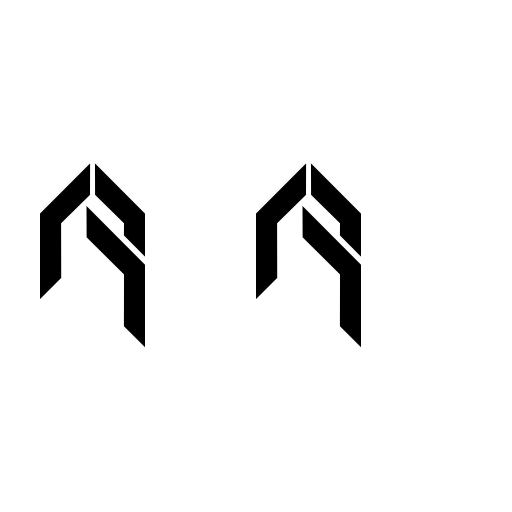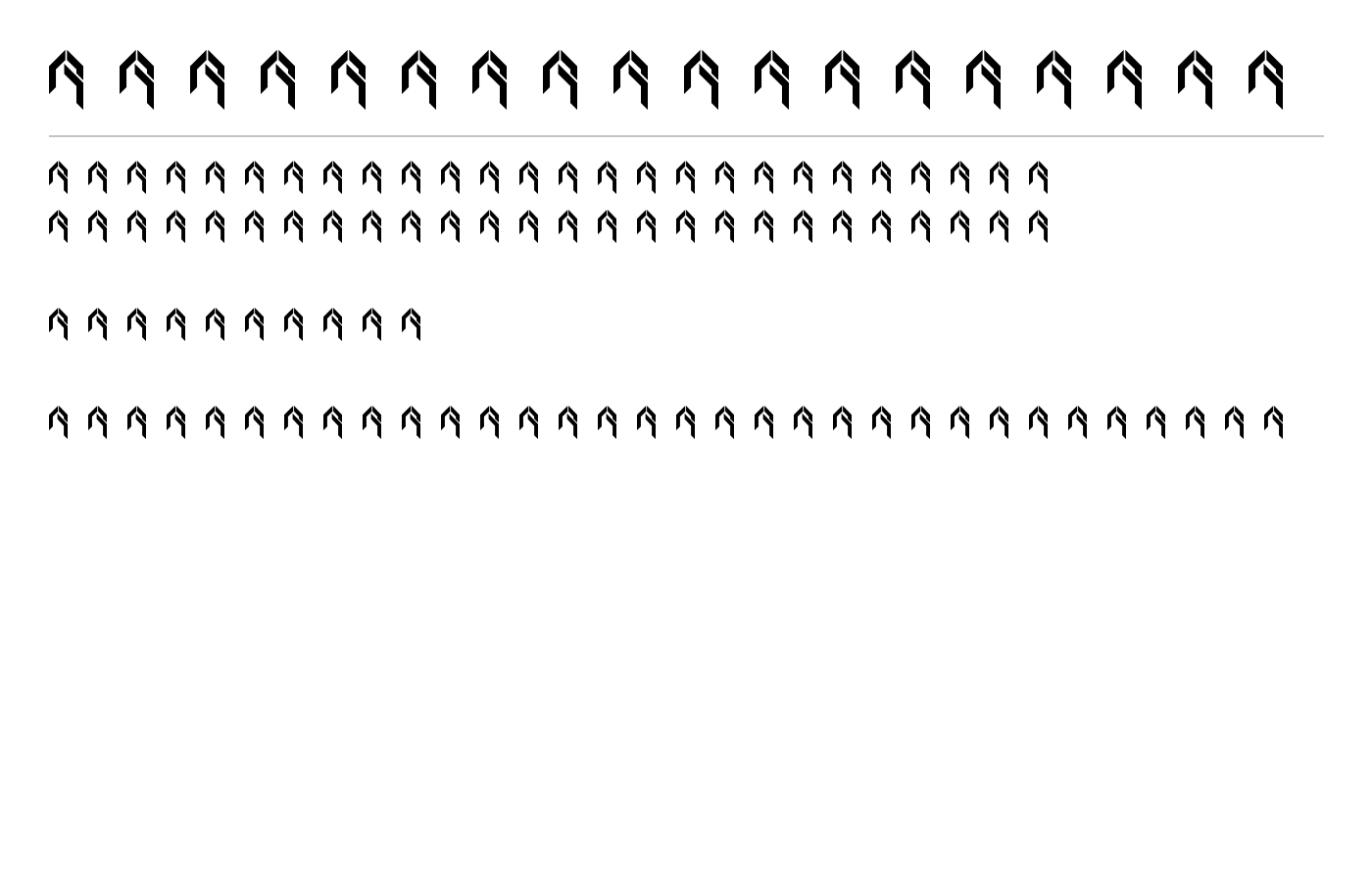
Bambu Runcing Lite is a bold, geometric display font with a strong, angular design that evokes a modern and industrial feel. Its sharp edges and compact form make it ideal for striking headlines, logos, and branding that demand attention and convey strength and precision. This font works best in creative projects where a futuristic or architectural aesthetic is desired.
Bambu Runcing Lite Font